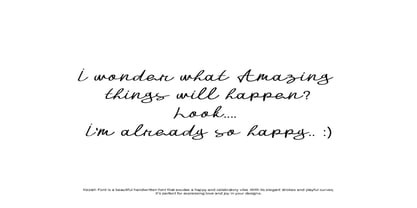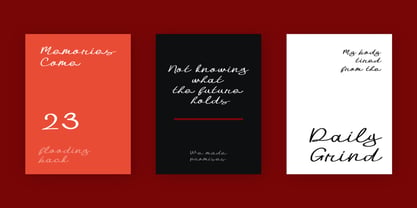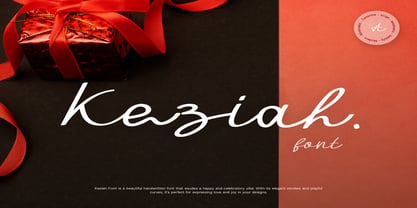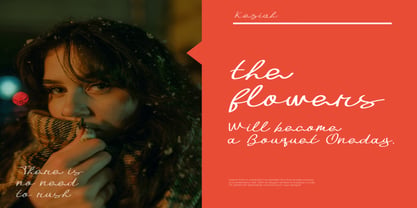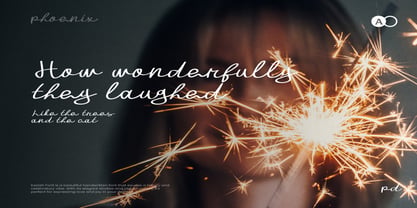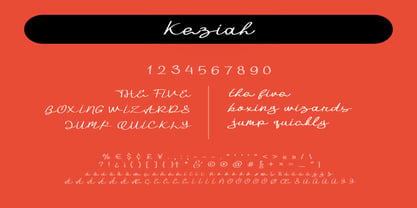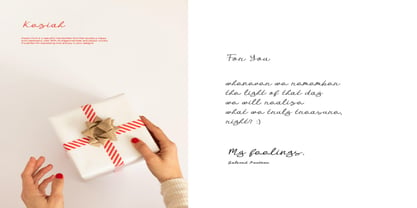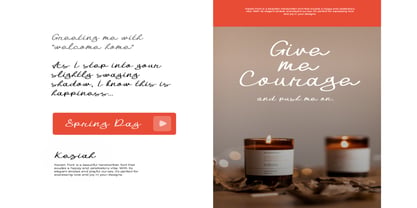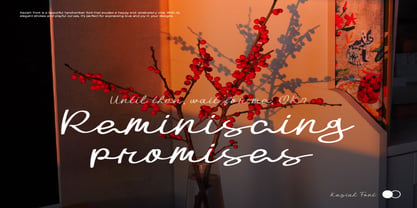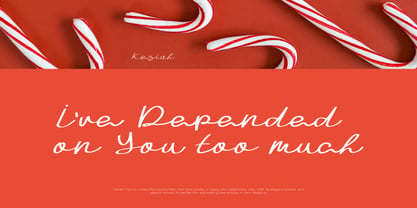
Keziah
by Phoenix Group
The Keziah Font Family was designed by Alif Naufal Muzakki and published by Phoenix Group. Keziah contains 1 styles. More about this family
Keziah is a modern script font with a feminine and elegant touch. Perfect for wedding invitations, beauty branding, greeting cards, packaging, and social media graphics. Its smooth, handwritten style adds a personal and romantic feel to any design. Whether you're creating logos or stylish quotes, Keziah brings charm, sophistication, and aesthetic flair to your creative projects.
Designers: Alif Naufal Muzakki
Foundry: Phoenix Group